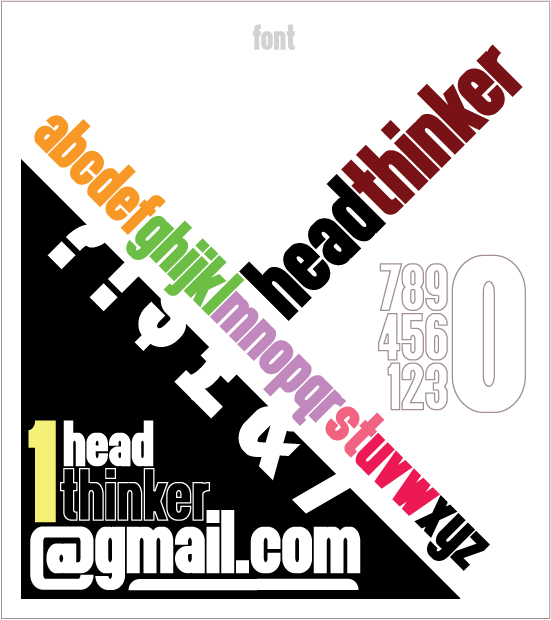
My very first attempt at designing my own font. Started off as me trying to make a few custom letters to go on a t-shirt design [link] ithnkerfoam was all I needed but I ended up with a whole damn font!
Best used with a large font size due to the tight letter spacing!
Was inspired by the all lowercase Olympiques font which I was originally going to use for my t-shirt design.
a-z (all letters are lowercase)
I may try to include accented characters in the next version if anybody requests them.